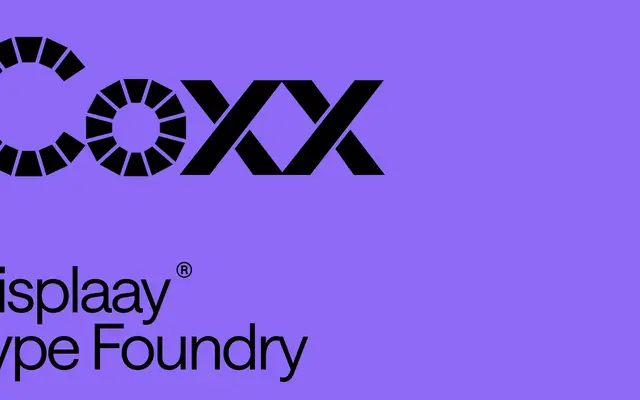
A geometric display sans in two subfamilies, one standard and one with open-counter GAPS cuts, built around a techno and rave-club aesthetic with a variable font axis spanning weight.
The collection spans 14 styles across Coxx and Coxx GAPS, with seven weights each running from Thin to Heavy. A variable font with weight and GAPS axes gives designers control over stroke thickness and counter aperture simultaneously. The framing draws explicitly on rave culture and Czech modernist type heritage, positioning the family for music, nightlife and counterculture applications.
Coxx is a display-oriented geometric sans with a rave and techno aesthetic, described as 'Preissig on coke at a rave party', suggesting a modernist geometric lineage pushed into subcultural display territory. The GAPS variant with its open counters reinforces its display character.